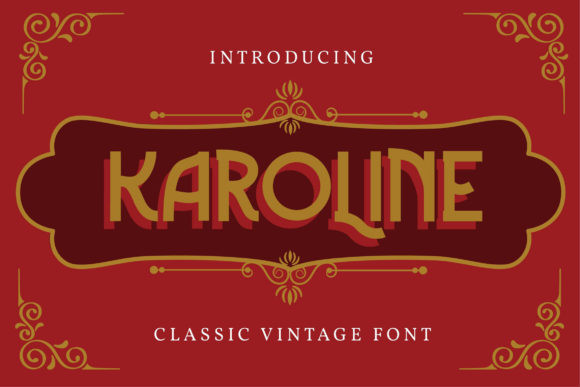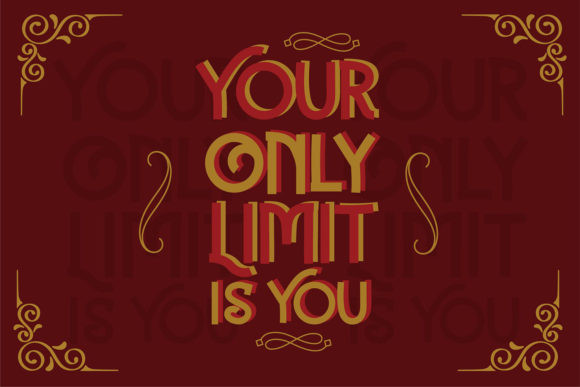
Karoline Font
Karoline FontKaroline is a vintage styled and cool display font. This font is PUA encoded which means you can access all of the glyphs and swashes with ease!